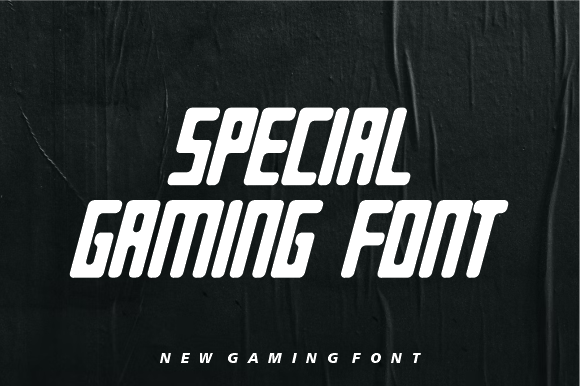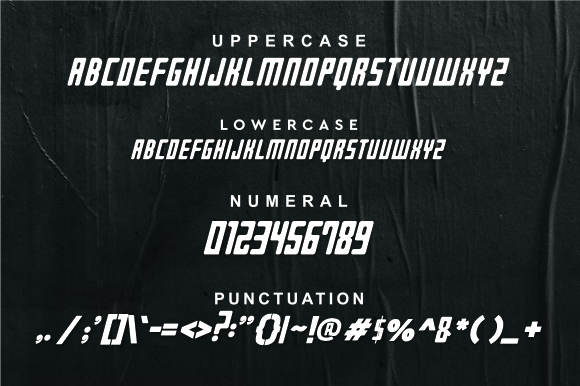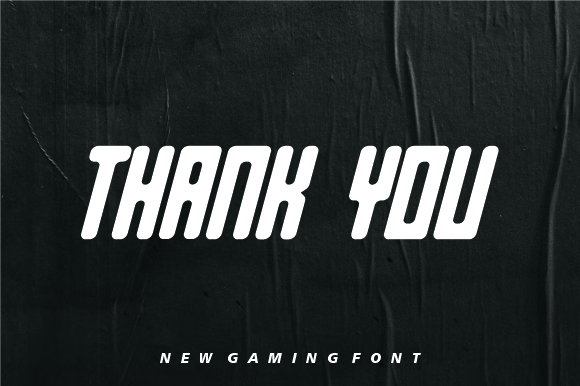
Introduction to Gamersag Font
Gamersag is a unique and modern Game font defined by geometric characters.
It’s the perfect game font, and it can make your projects extraordinary Add it with confidence to your projects, and you’ll love the results.
Key Features of Gamersag Font
Why Choose Gamersag Font?
Gamersag Font offers exceptional quality and versatility, making it a valuable addition to your design toolkit. Whether you’re creating for personal projects or commercial use, Gamersag Font delivers professional results.